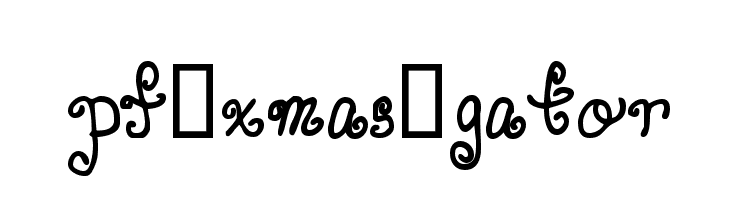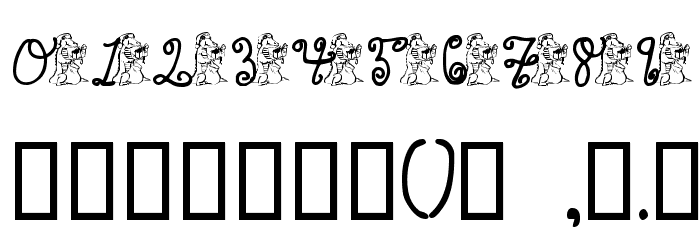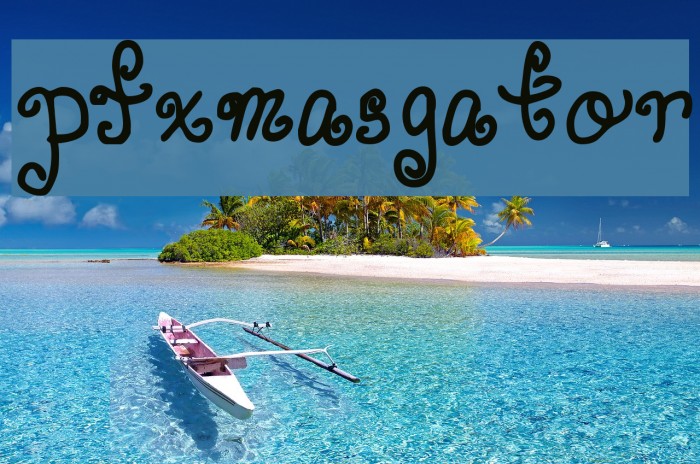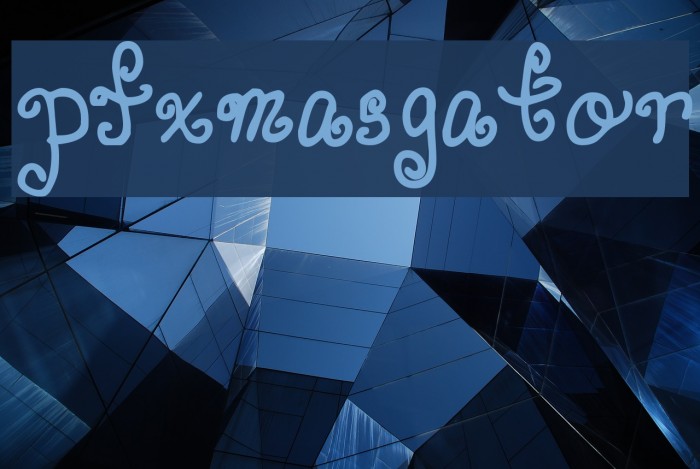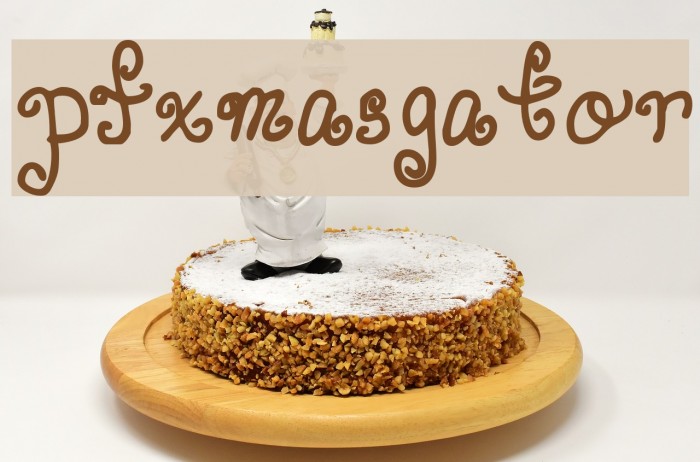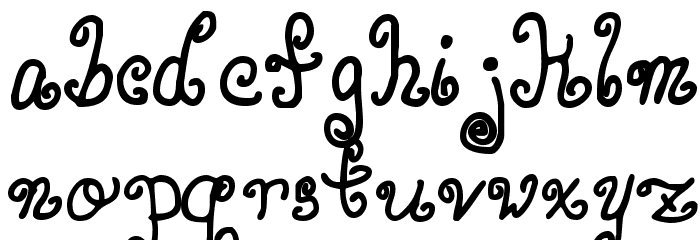
pf_xmas_gator Font
pf_xmas_gator Description
This whimsical and festive font features playful alligator illustrations integrated into the uppercase letters, creating a unique and entertaining design. The lowercase letters exhibit a curly, script-like style with exaggerated loops and swirls, adding a sense of fun and movement. The numbers also incorporate the alligator theme, maintaining consistency with the uppercase letters. The special characters are bold and straightforward, complementing the overall playful aesthetic. This font is perfect for holiday-themed projects, children's materials, or any design that requires a touch of humor and creativity.
A playful, alligator-themed font with curly, script-like lowercase letters from Uncategorized fonts.